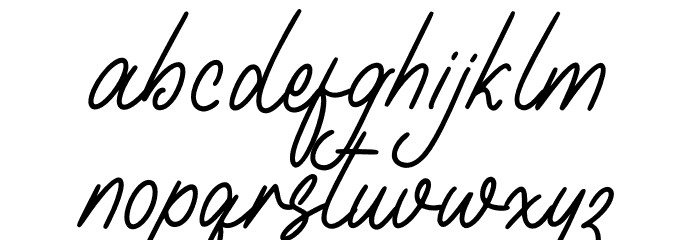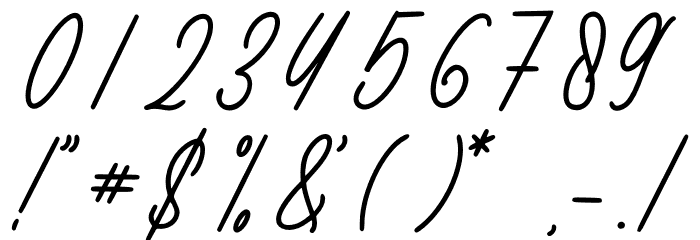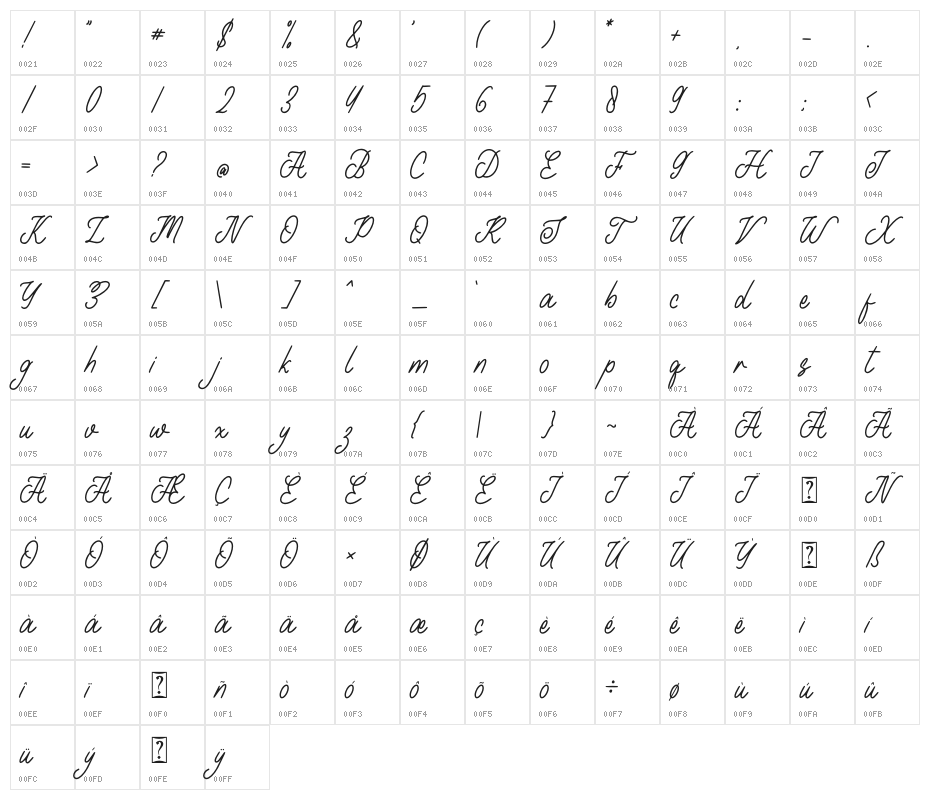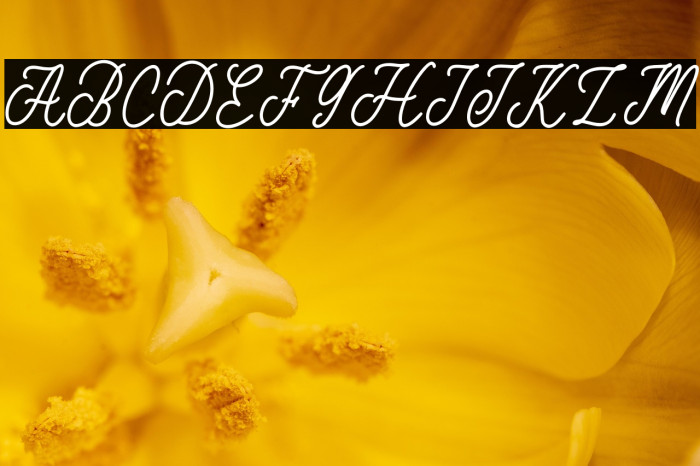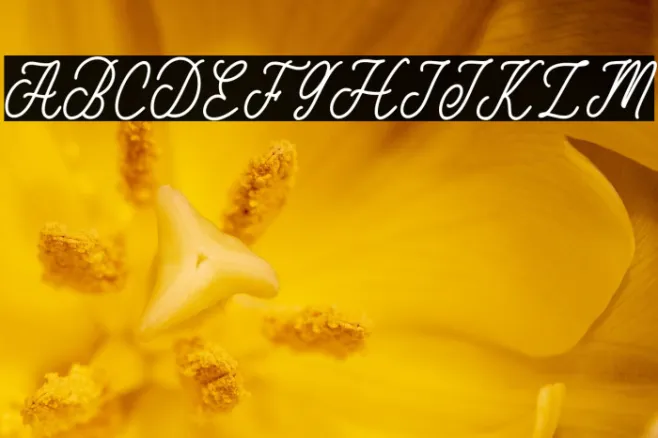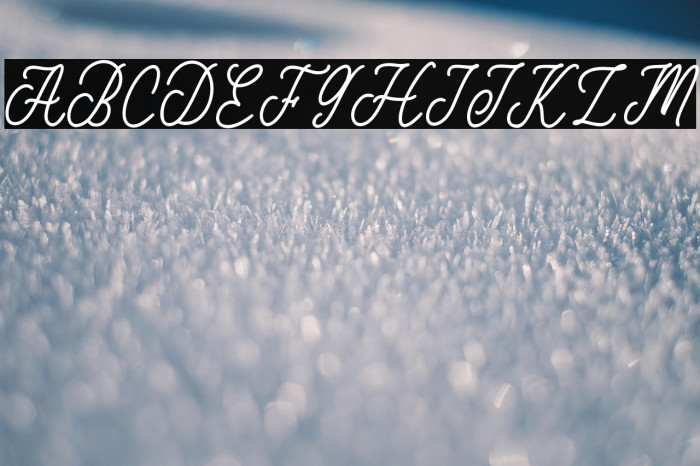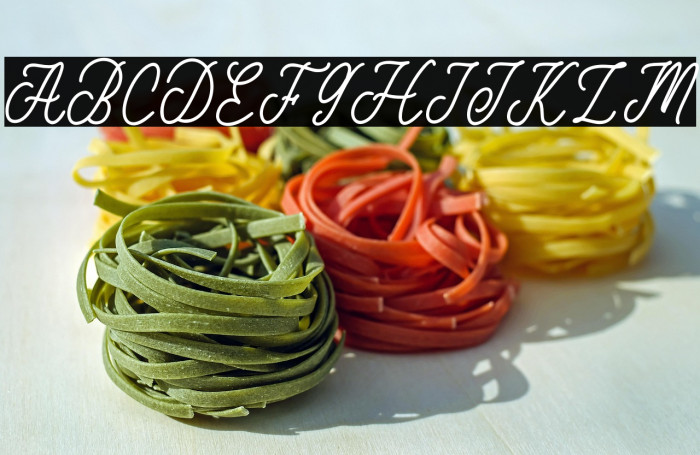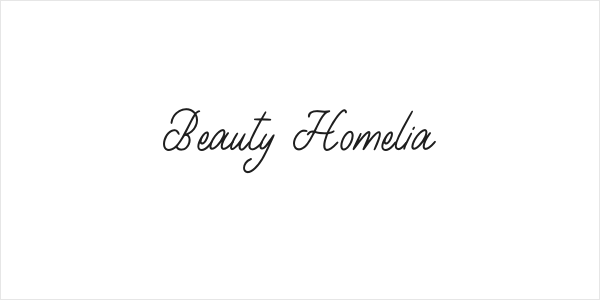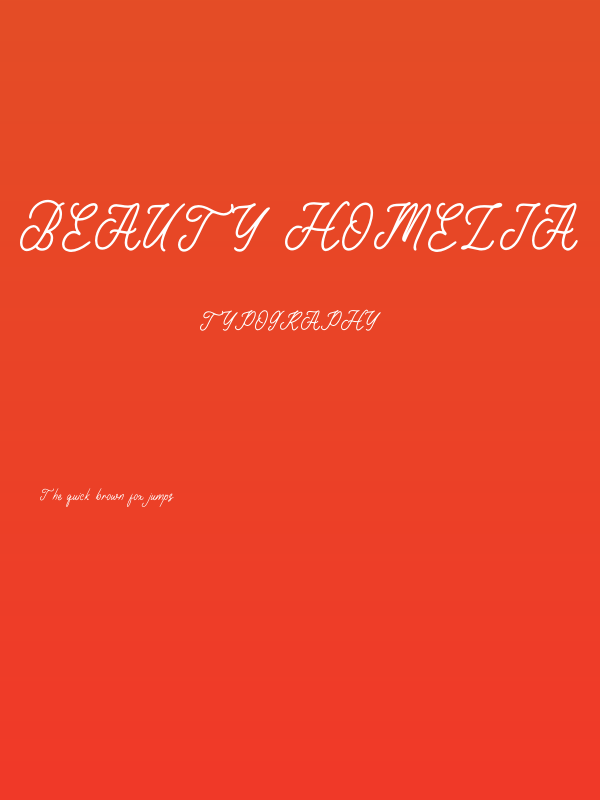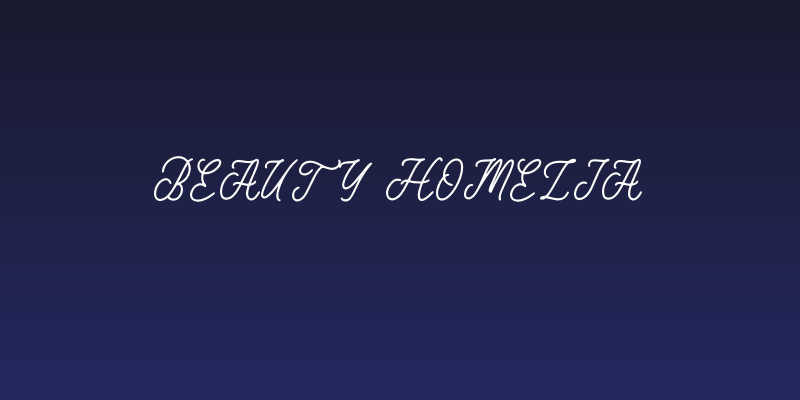
Beauty Homelia Font
This elegant script font features a flowing, cursive style with smooth, connected strokes that mimic the fluidity of handwriting. The uppercase letters are slightly more ornate, with graceful loops and curves, while the lowercase letters maintain a consistent, flowing appearance. The numerals are clear and legible, matching the overall script style. Special characters are integrated seamlessly, maintaining the font's cohesive look. This font exudes a sense of sophistication and charm, making it ideal for projects that require a personal touch.
An elegant script font with flowing, connected strokes and a sophisticated style.
- Font: Beauty Homelia
- Proposed Projects: Ideal for wedding invitations, greeting cards, personal branding, and elegant packaging designs.
- Category: Script
- Overall Style: Elegant, Sophisticated
- Use Case: Invitations, Branding, Packaging